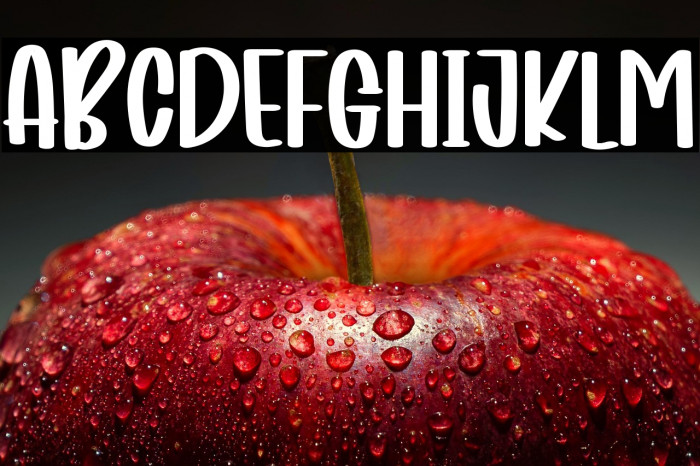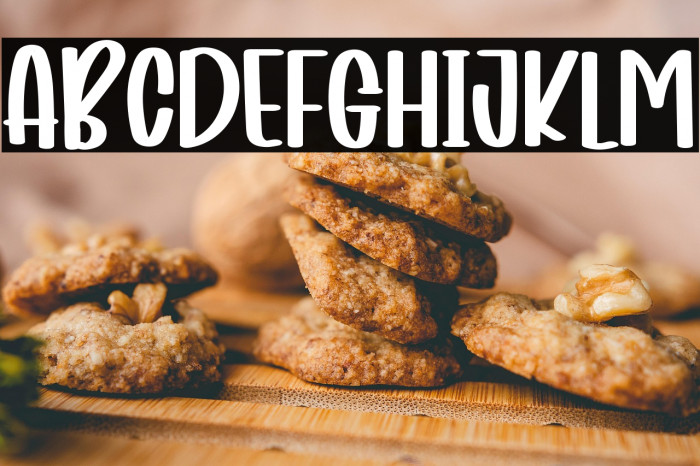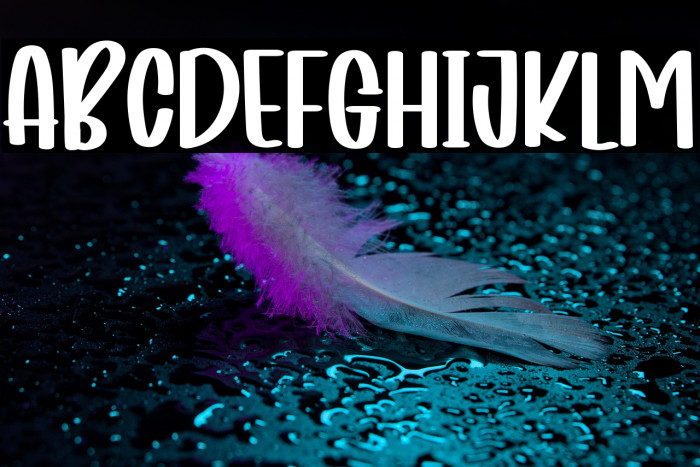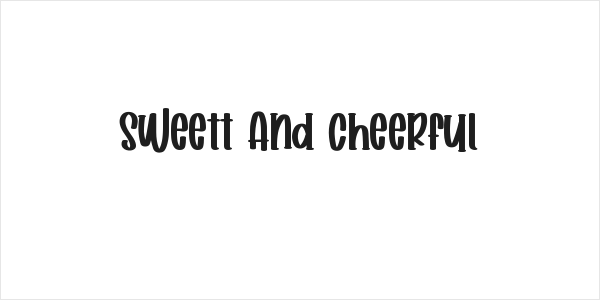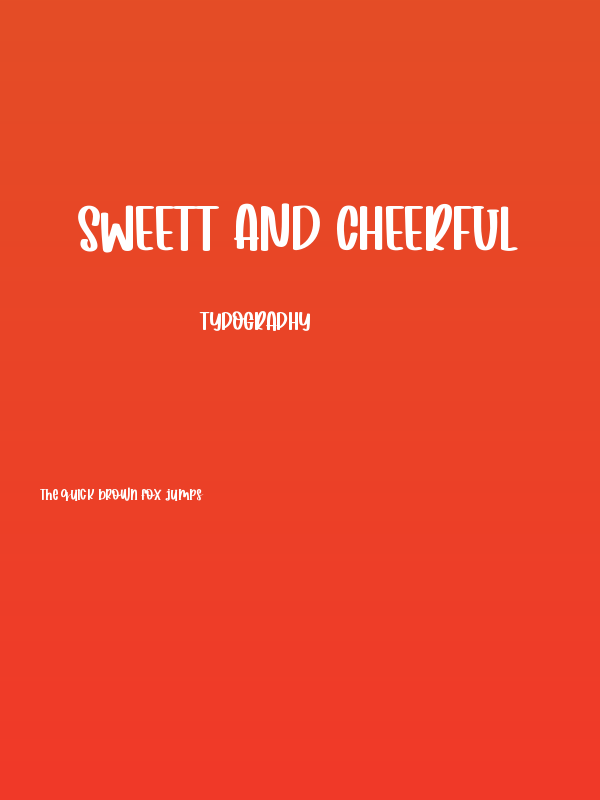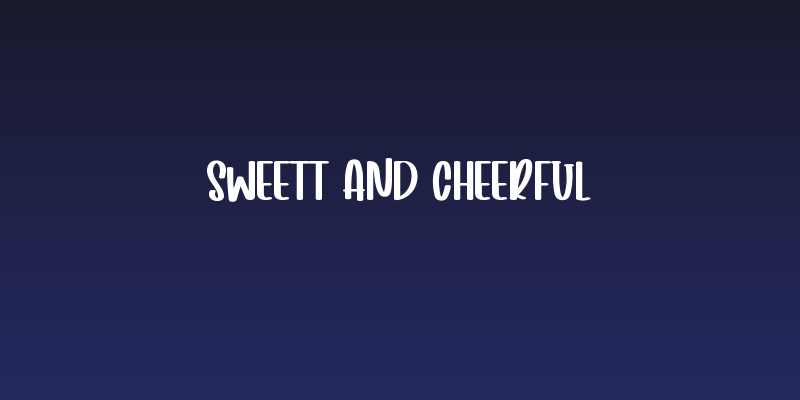
Sweett And Cheerful Font
Sweett And Cheerful Description
This playful and energetic font features bold, rounded characters with a hand-drawn aesthetic. The letters exhibit a whimsical style, with varying stroke widths that add a lively and dynamic feel. The uppercase and lowercase letters maintain a consistent flow, while the numerals and special characters complement the overall design. The font's informal and cheerful appearance makes it ideal for projects that require a touch of fun and creativity.
| Proposed Projects | Perfect for children's books, playful branding, greeting cards, and creative posters. |